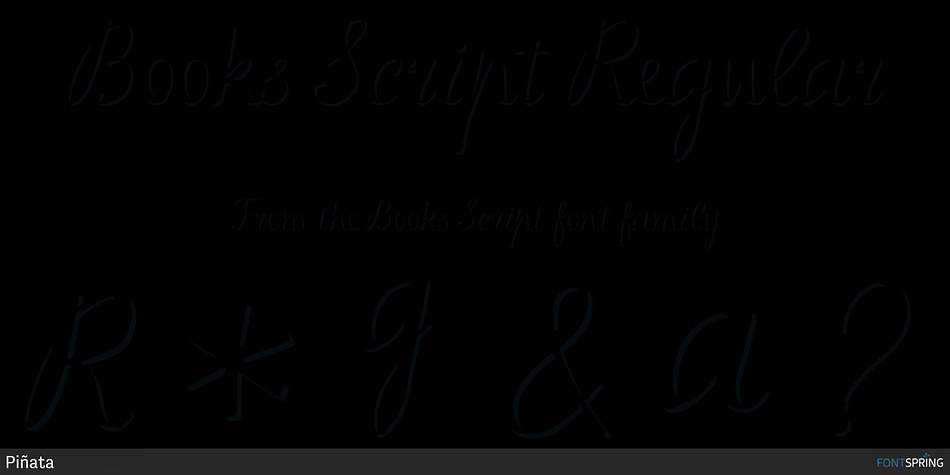
Books Script Regular
Books Script is a script font published by Pinata.
Books Script is a vintage script; it is based on the books design of the Soviet period between 1960 and 1970. This font is perfect for illustrators and books which are designed for children.